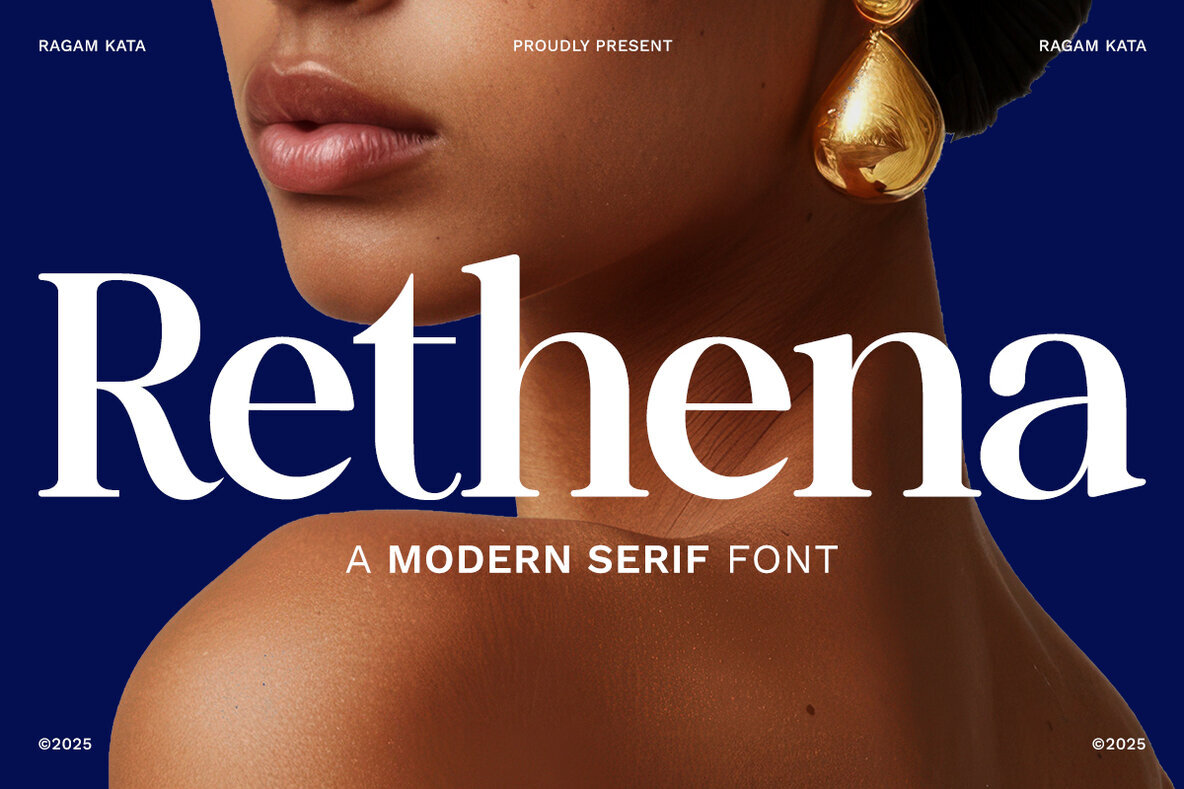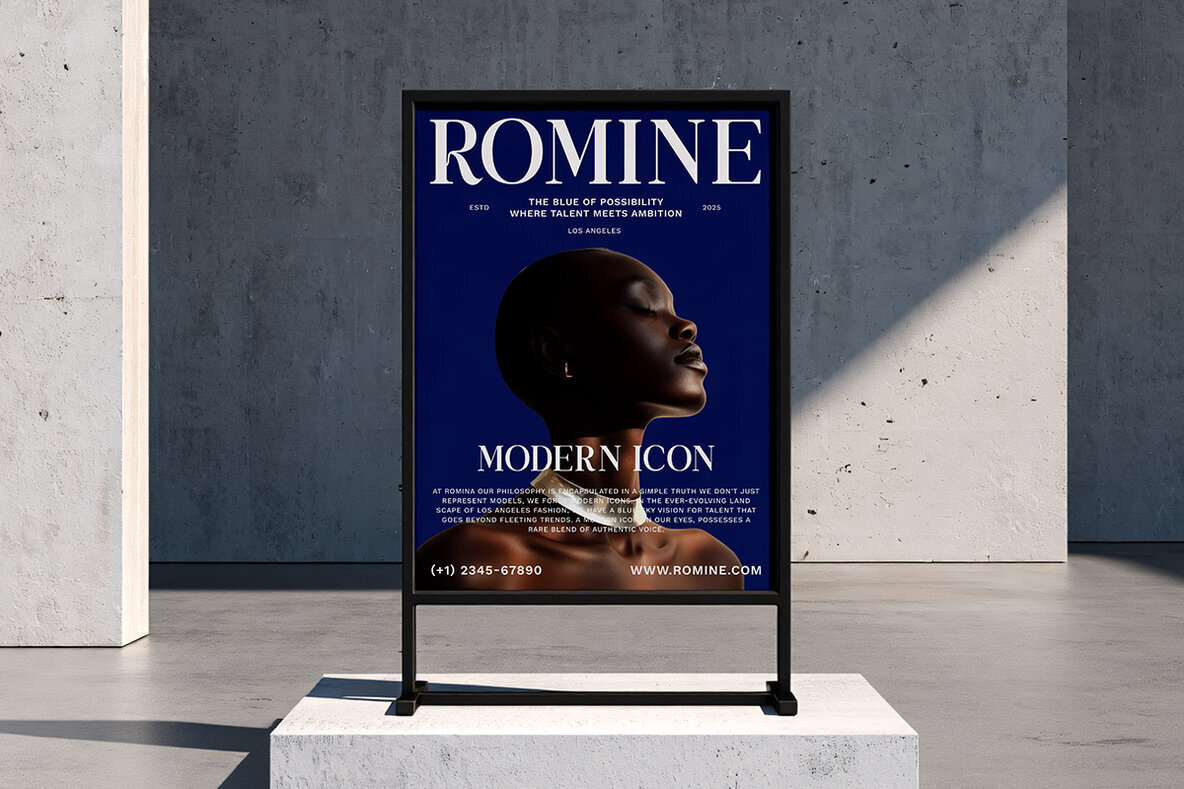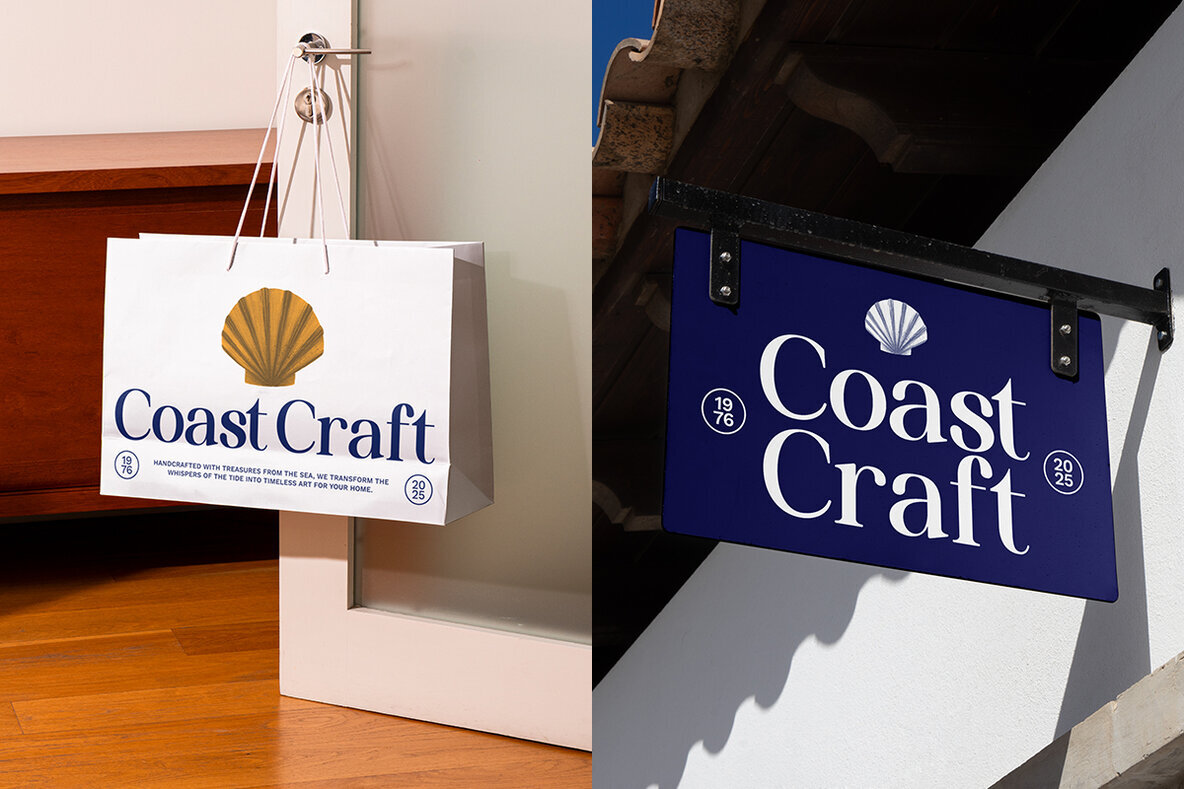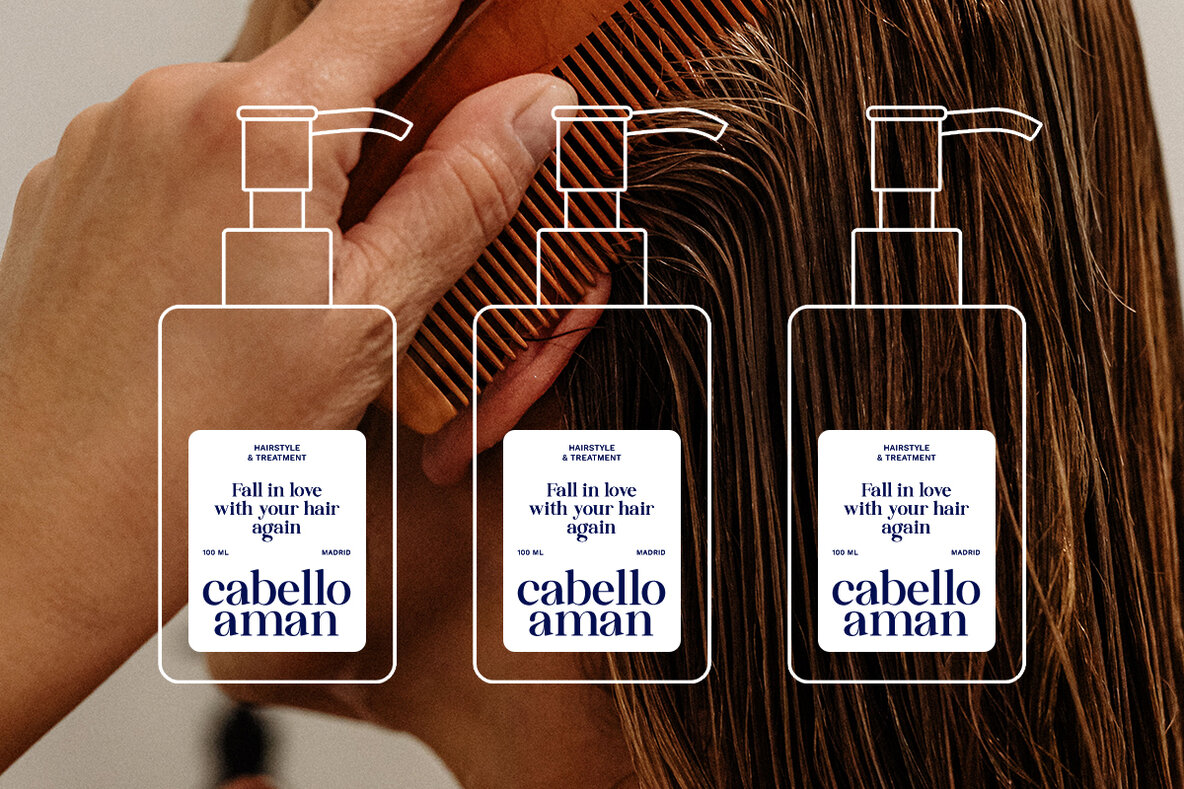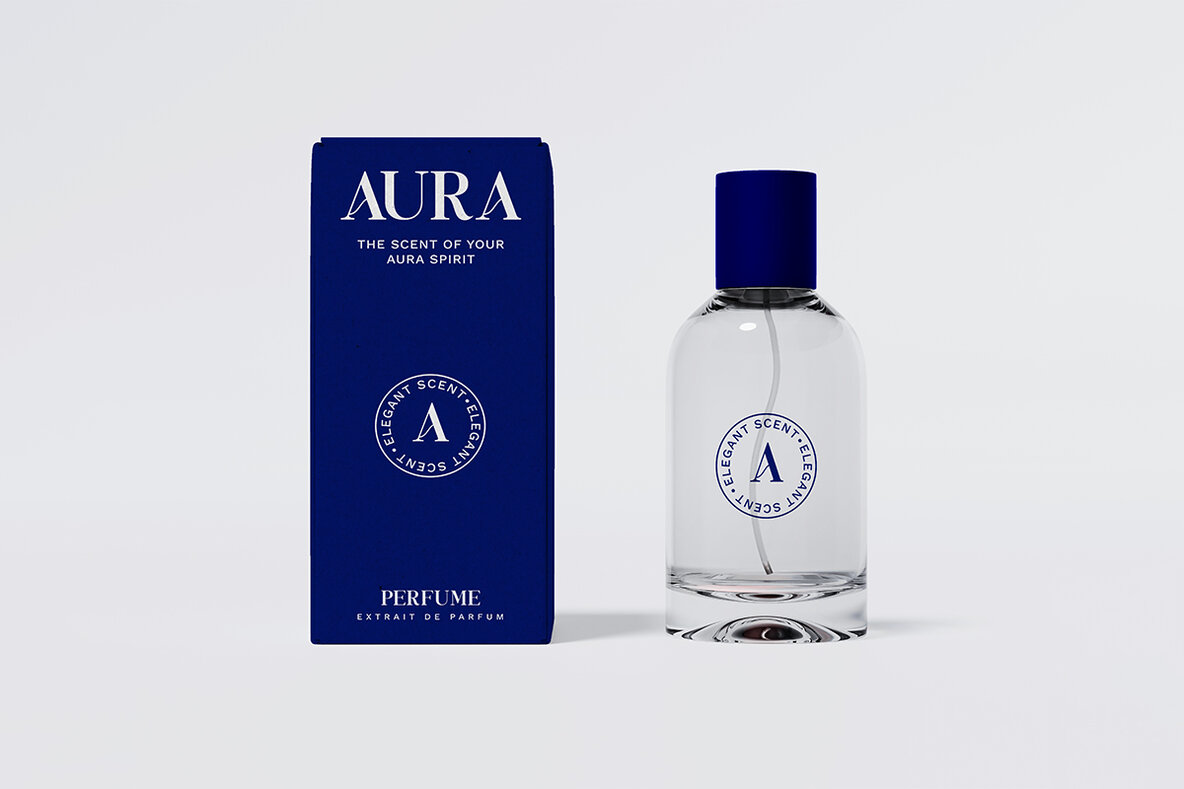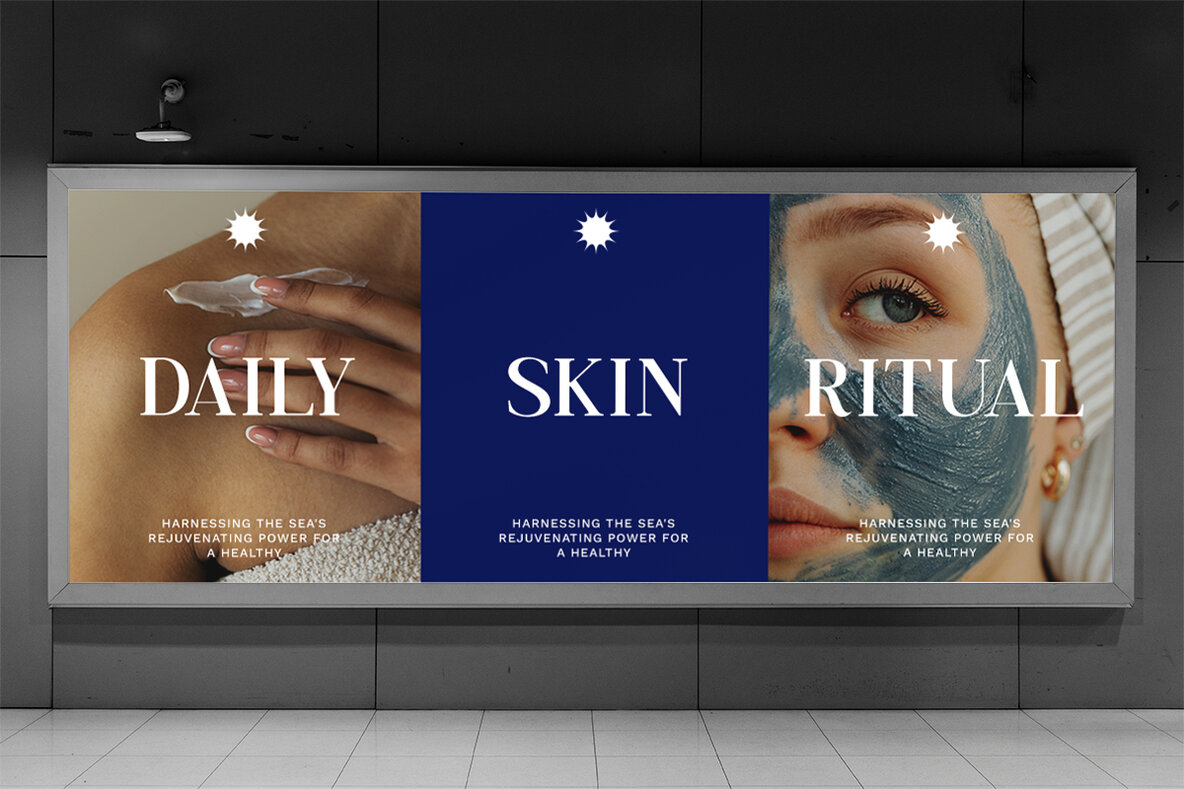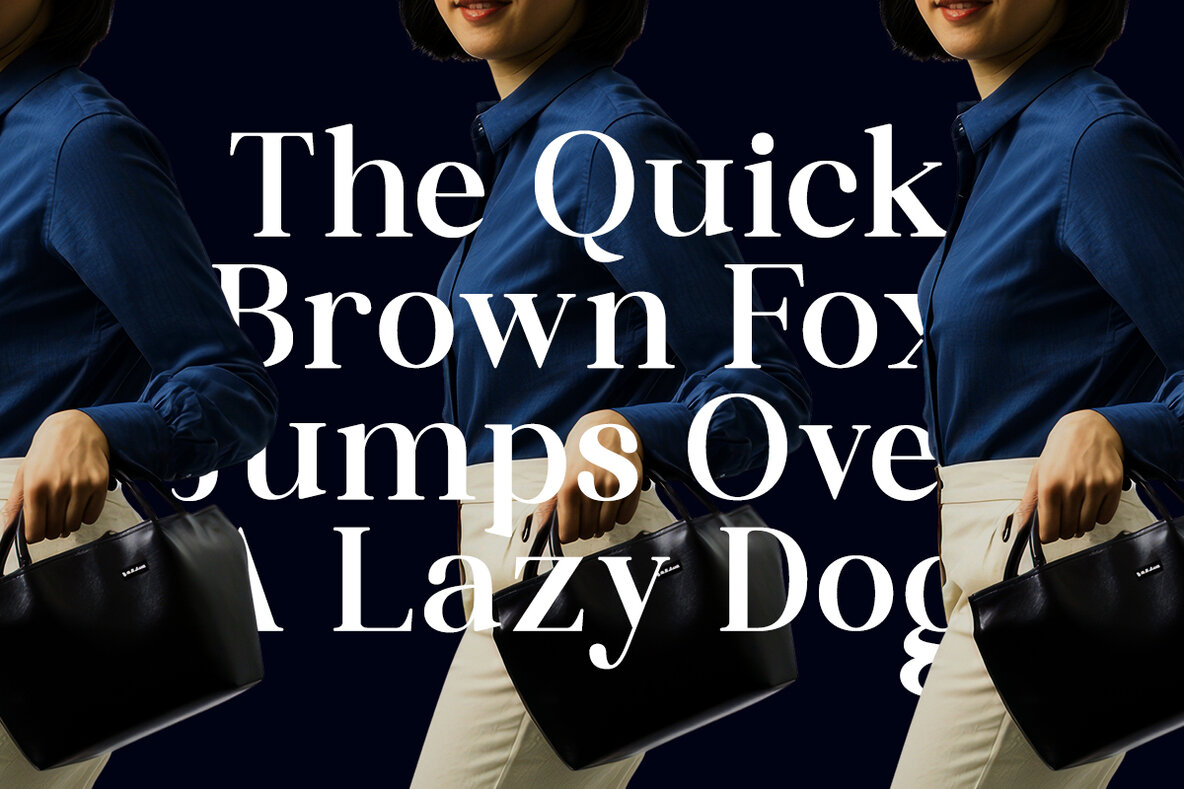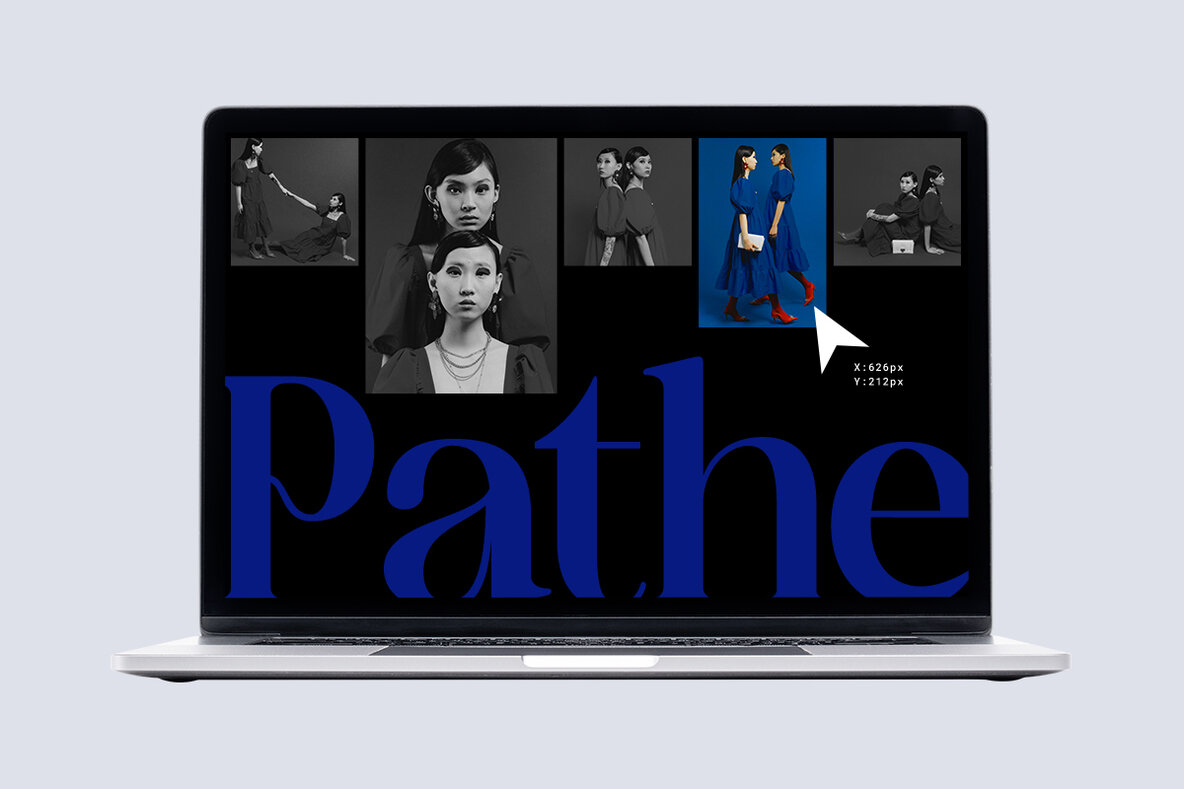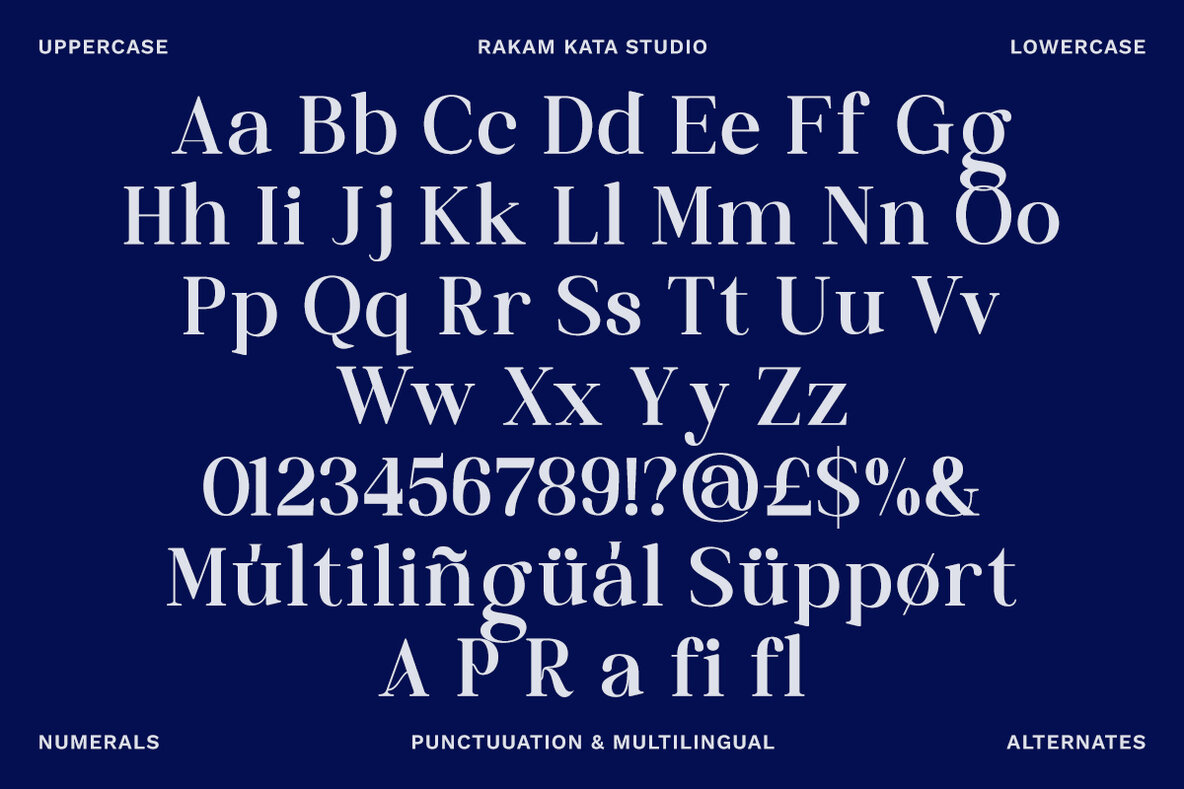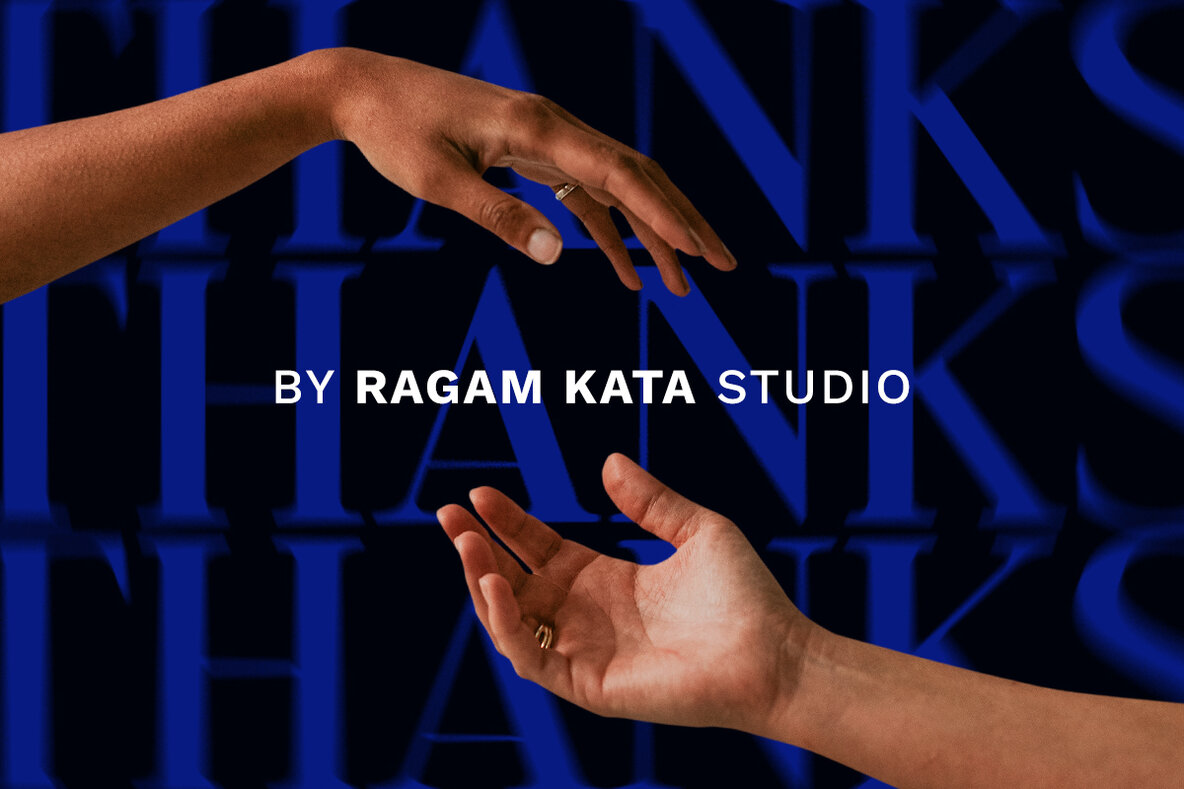
Rethena Font
Rethena Regular
Rethena stands out as a modern serif font designed for discerning creatives. With its seamless balance of refined curves and bold details, it brings understated sophistication to branding, editorial layouts, packaging, and luxury logos. The distinct letterforms achieve both clarity and visual appeal, providing versatility for projects that require a blend of tradition and modernity. Rethena offers a reliable solution for designers who value a polished, contemporary aesthetic.Rethena: Modern Serif With Elegant Contrast